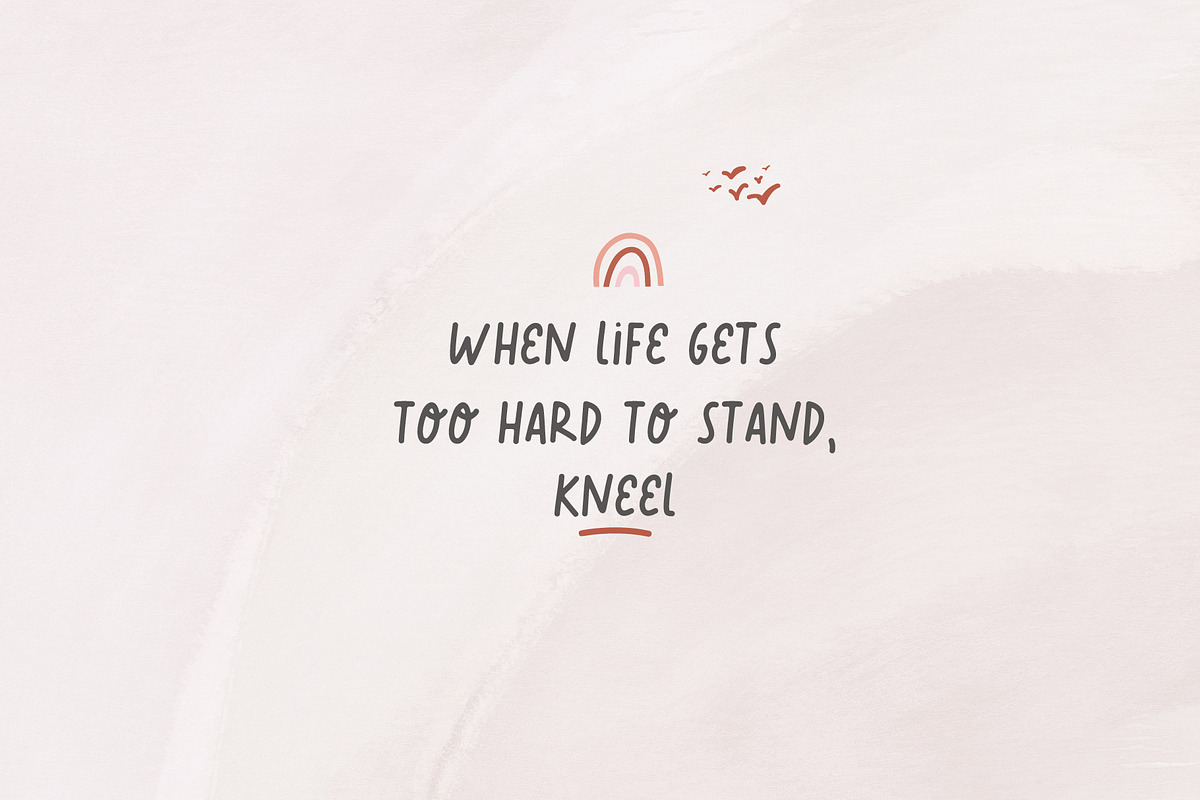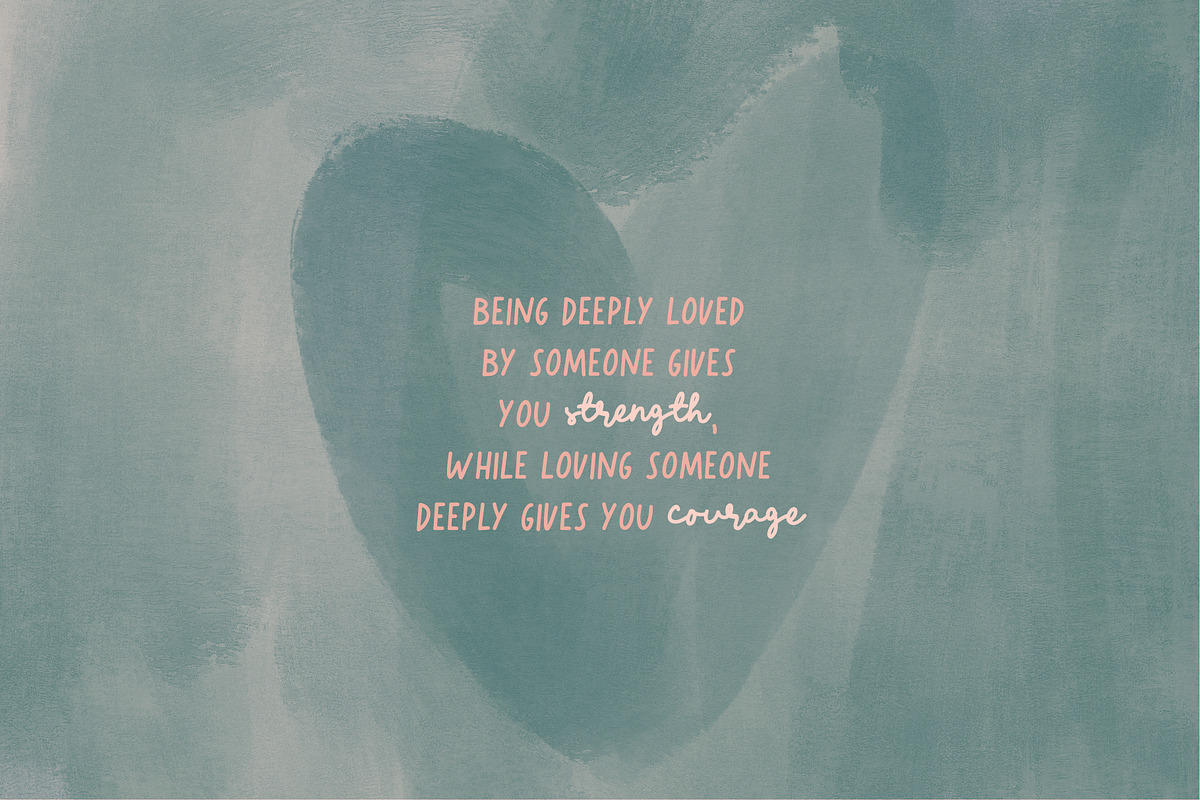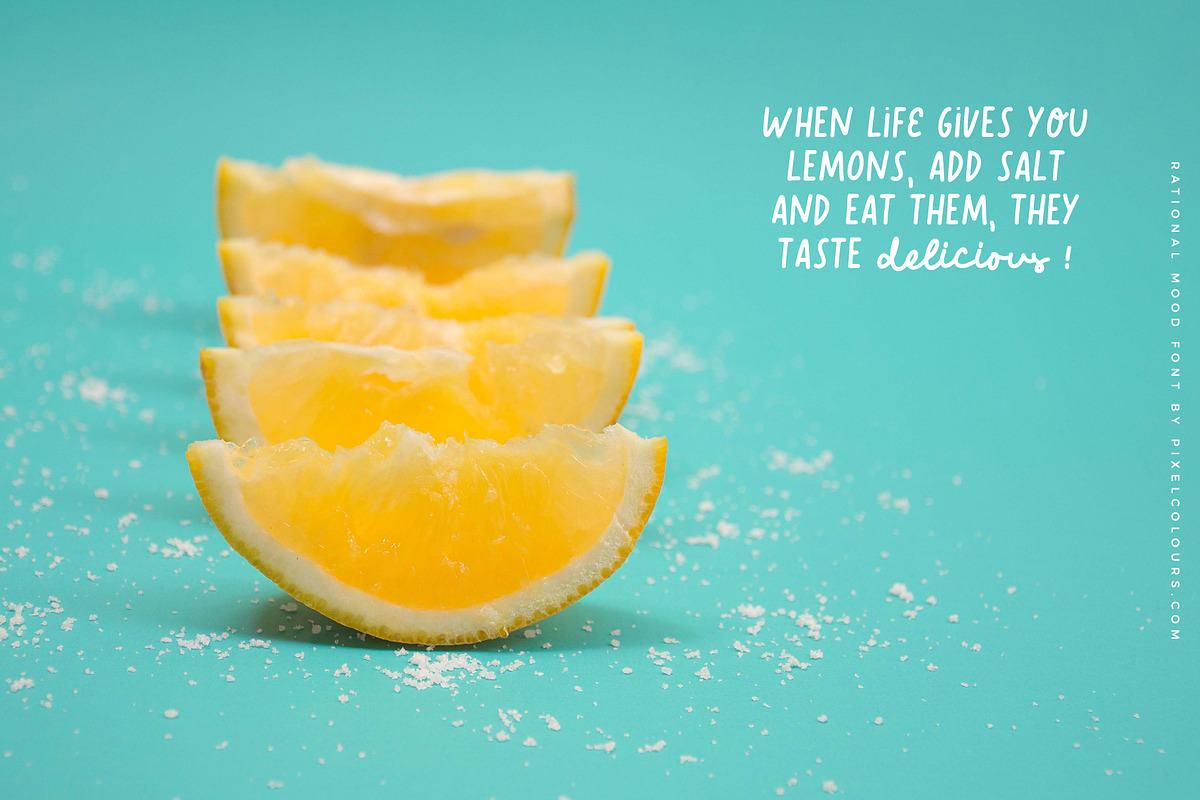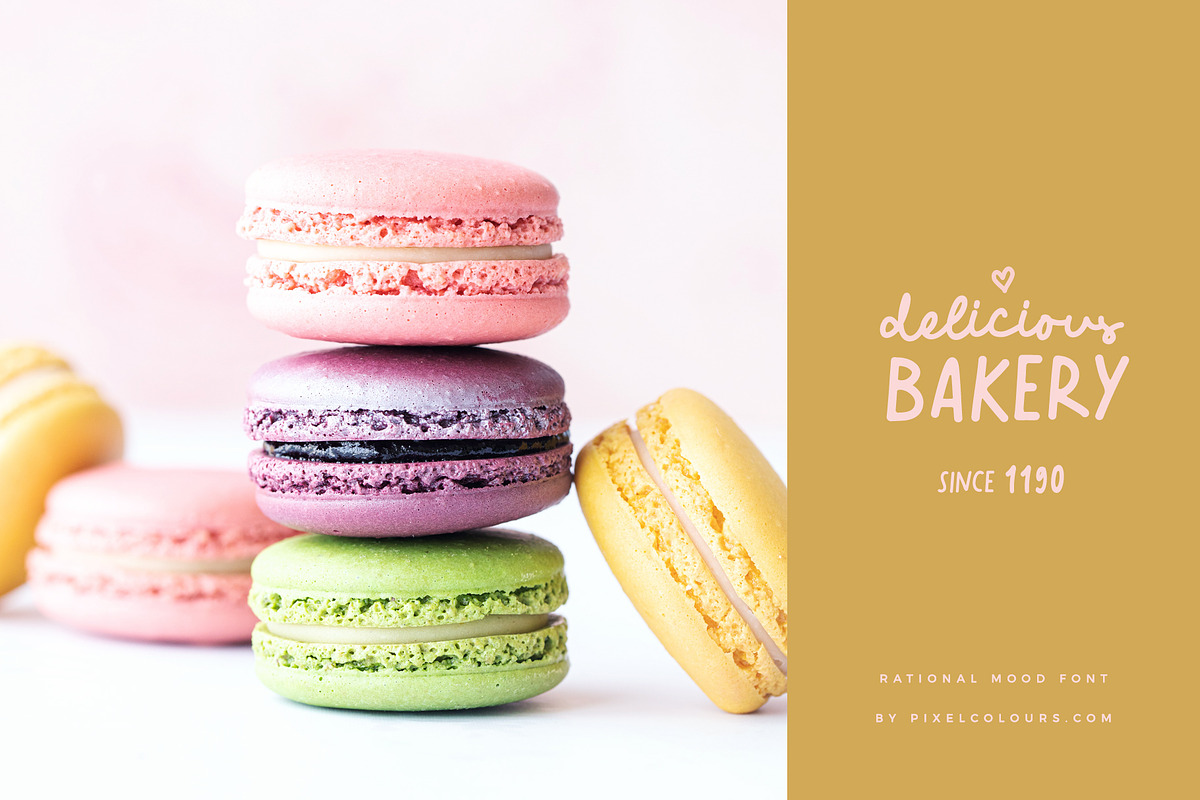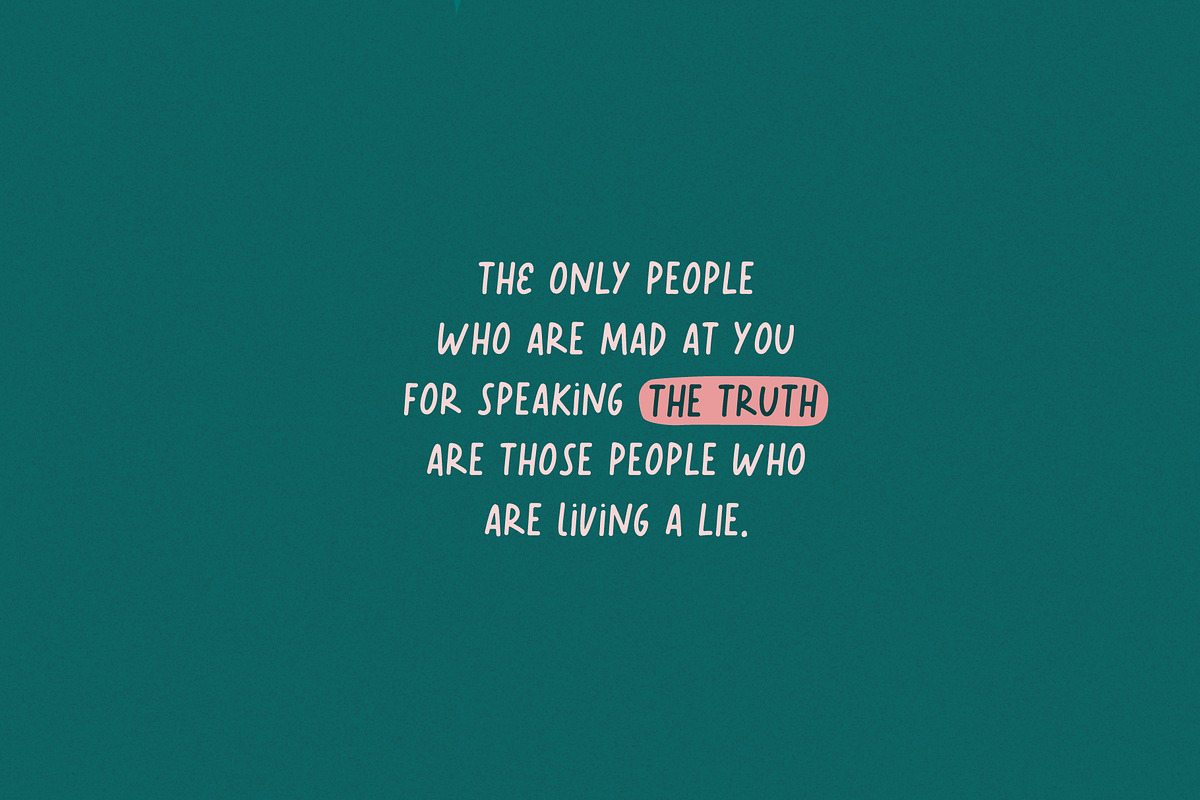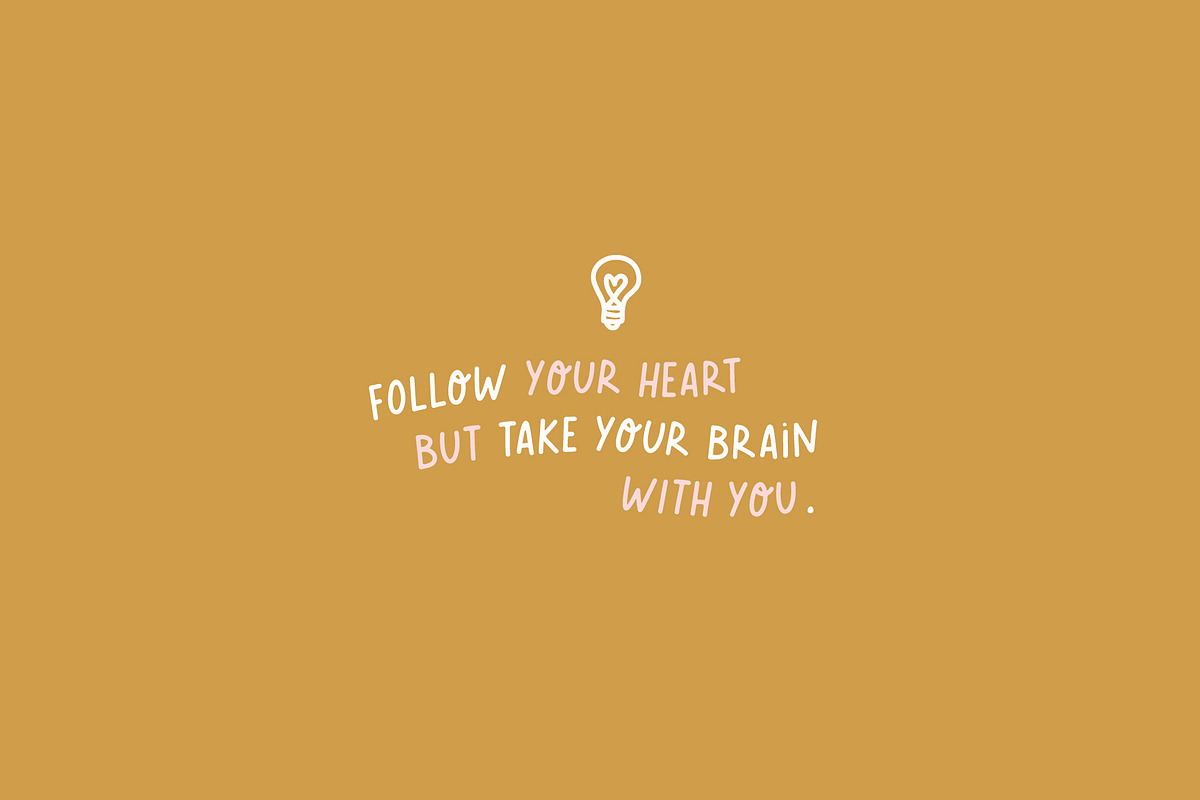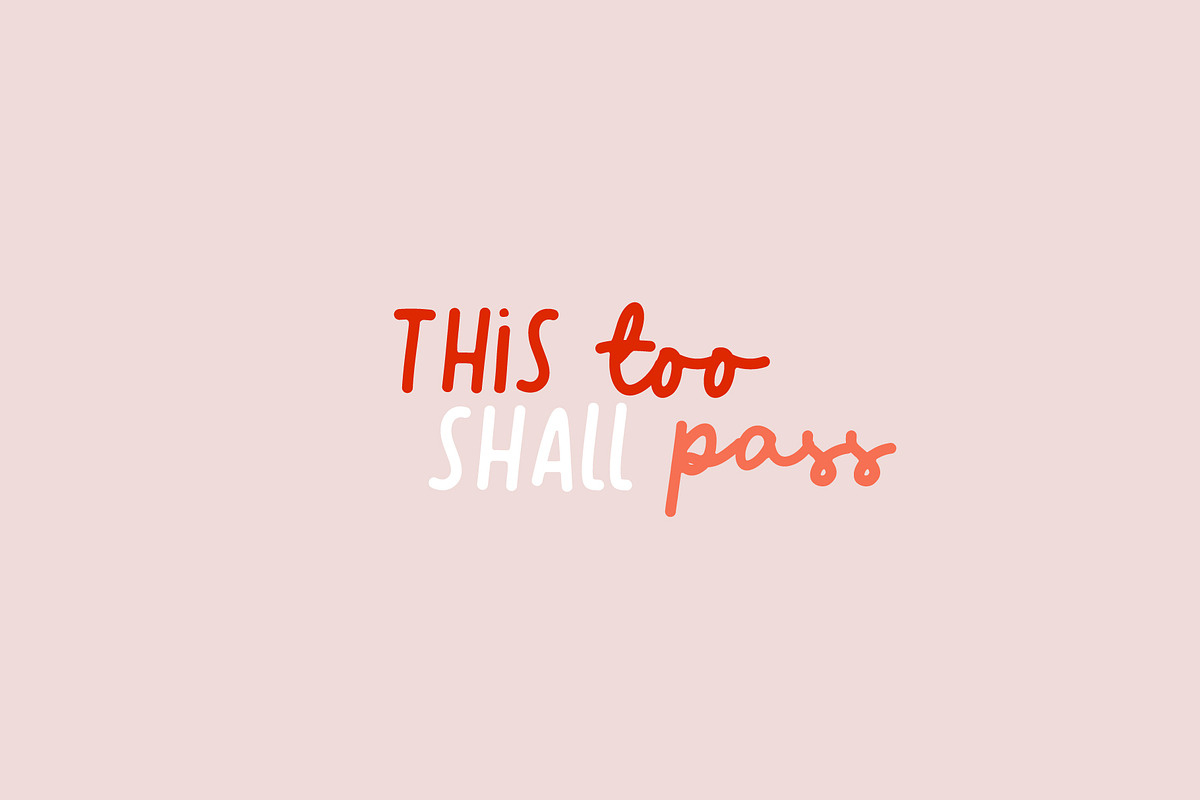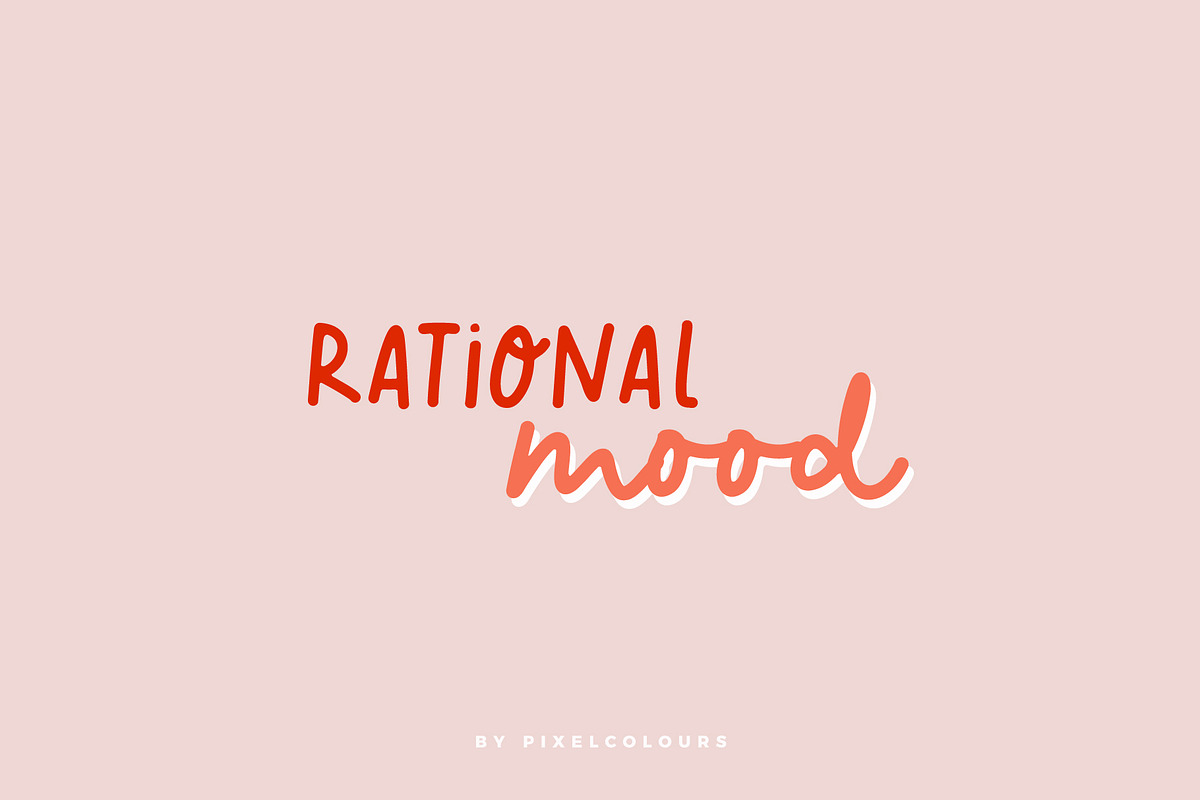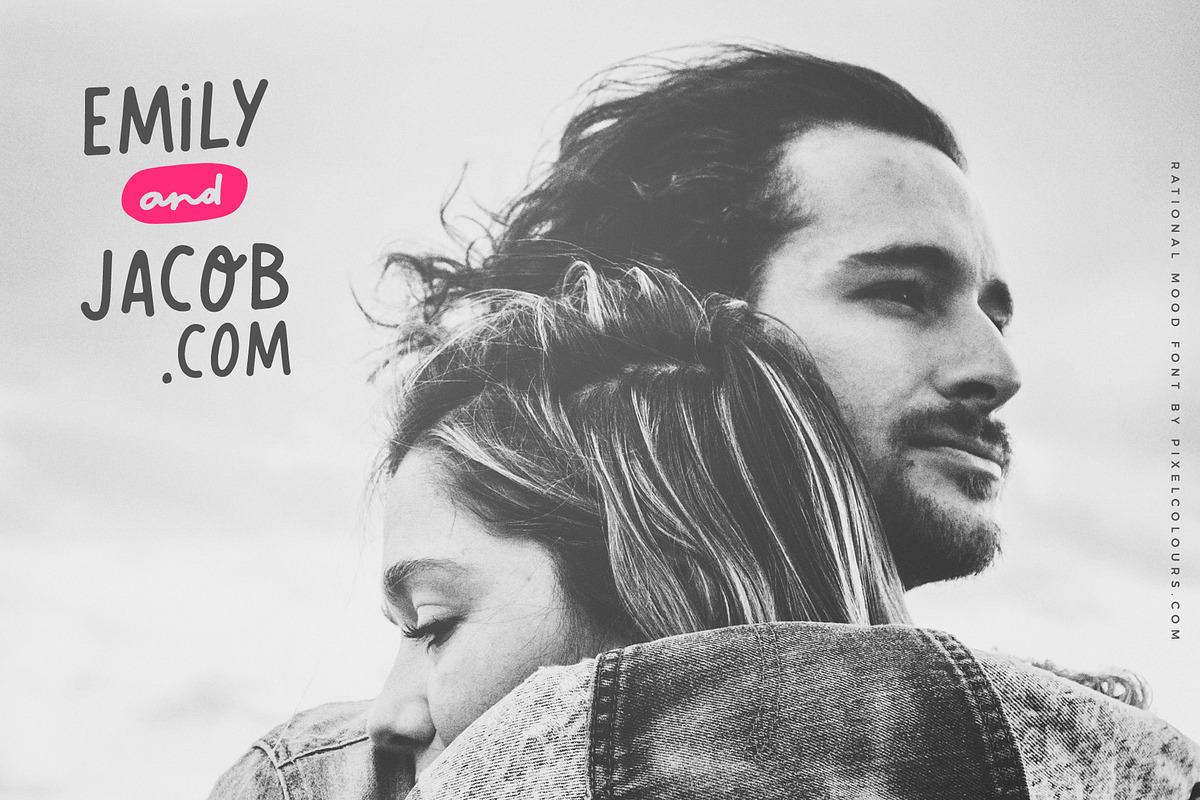
Script Font Rational Mood
Rational Mood Font is a handwriting font trio that includes an uppercase, script and tons of extra illustrations to create the cutest designs. Make beautiful quotes or posts for Pinterest or Instagram and decorate them with cute graphics.
Rational Mood Regular: the uppercase font
Rational Mood Script: the script font
Rational Mood Extras: dingbats font for decoration
Uppercase, lowercase, numbers and punctuation